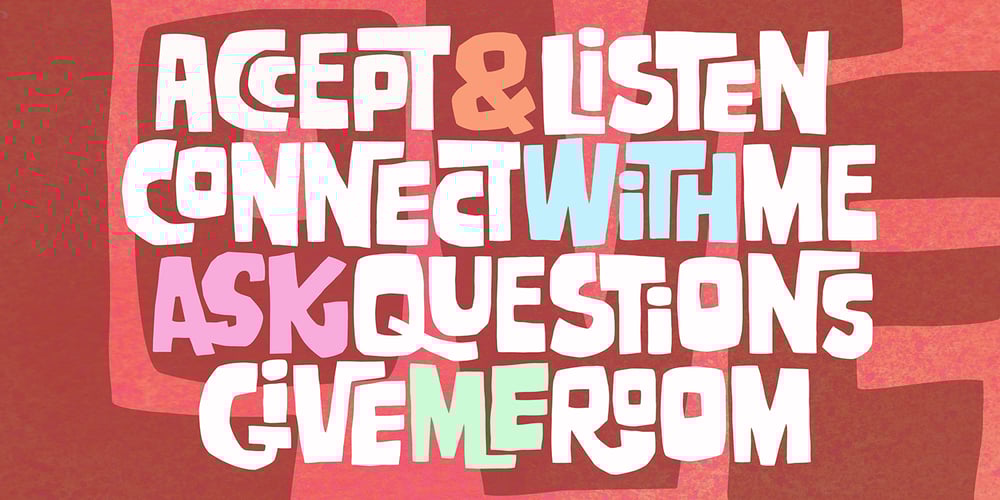
Galavant Font Family was designed by Amy Dietrich and published by Atlantic Fonts. Galavant contains 1 styles and family package options. Galavant will take you anywhere you want to go! Enjoy three font looks in one; a fun, chunky lower-case, a bold, animated upper-case, and in all-caps with discretionary ligatures turned on, Galavant is tightly interlocking. To explore the interlocking possibilities, turn some ligatures off and others on until you settle on the best combo. There are over 260 two, three, and four-letter ligatures available. Discover interlocking ligatures featuring lower-case “i” along the road as well. In sentence-case, turn discretionary ligatures off, except to add more handmade variation in double-letter pairs and to access a fine “ft”. However you roam, Galavant aims to entertain.